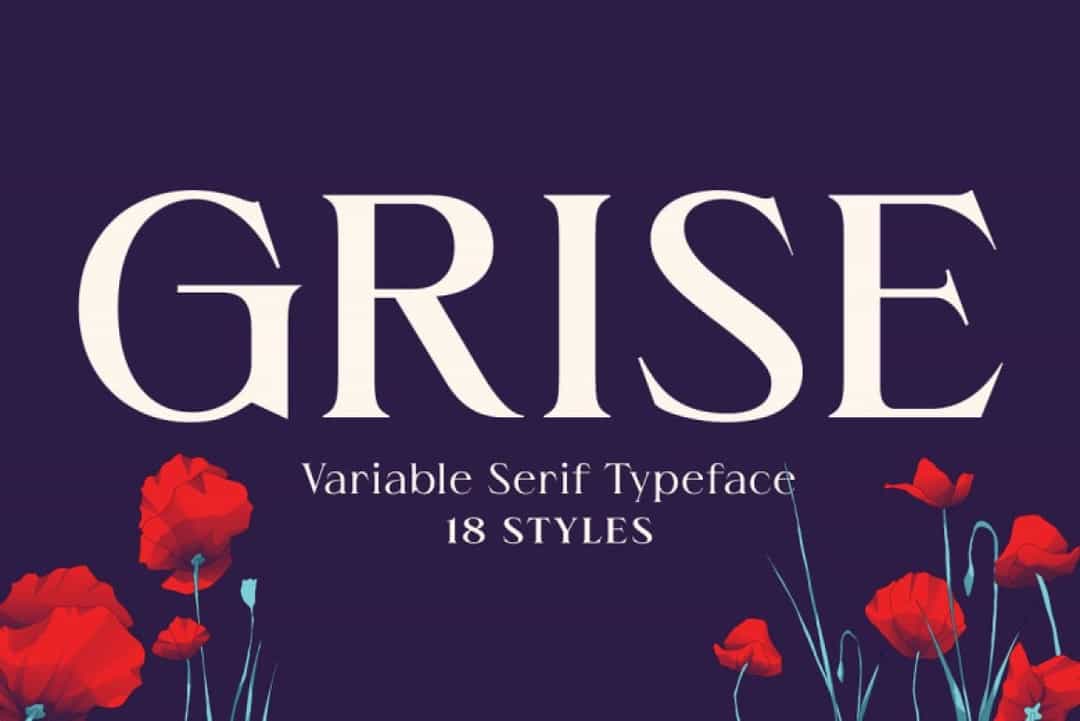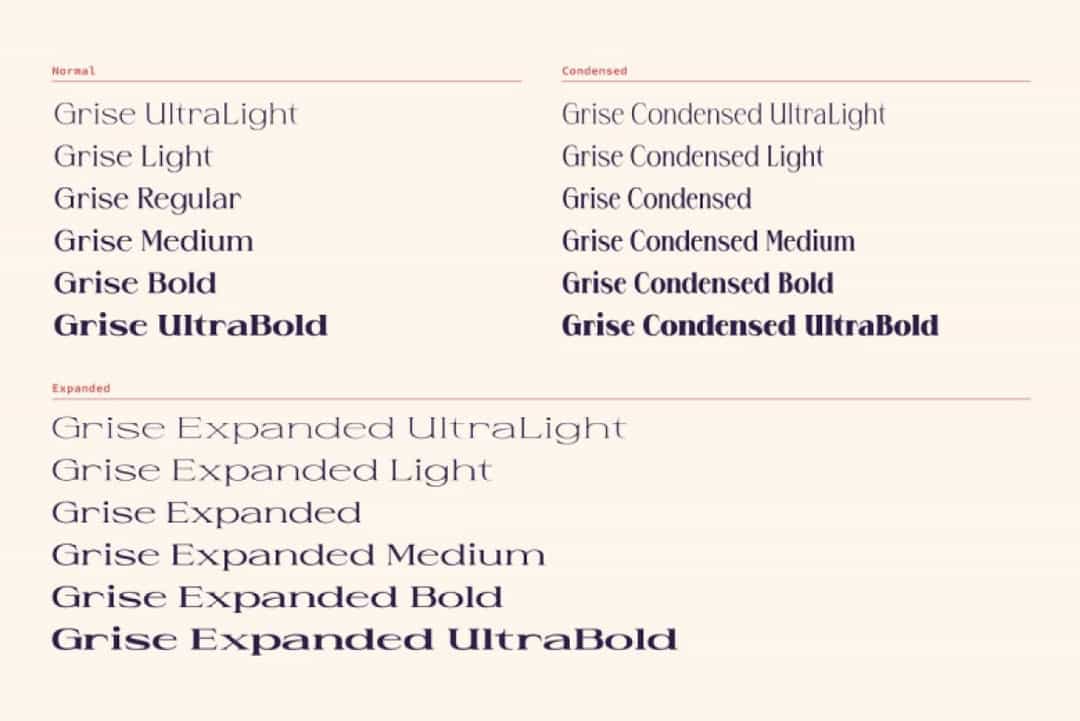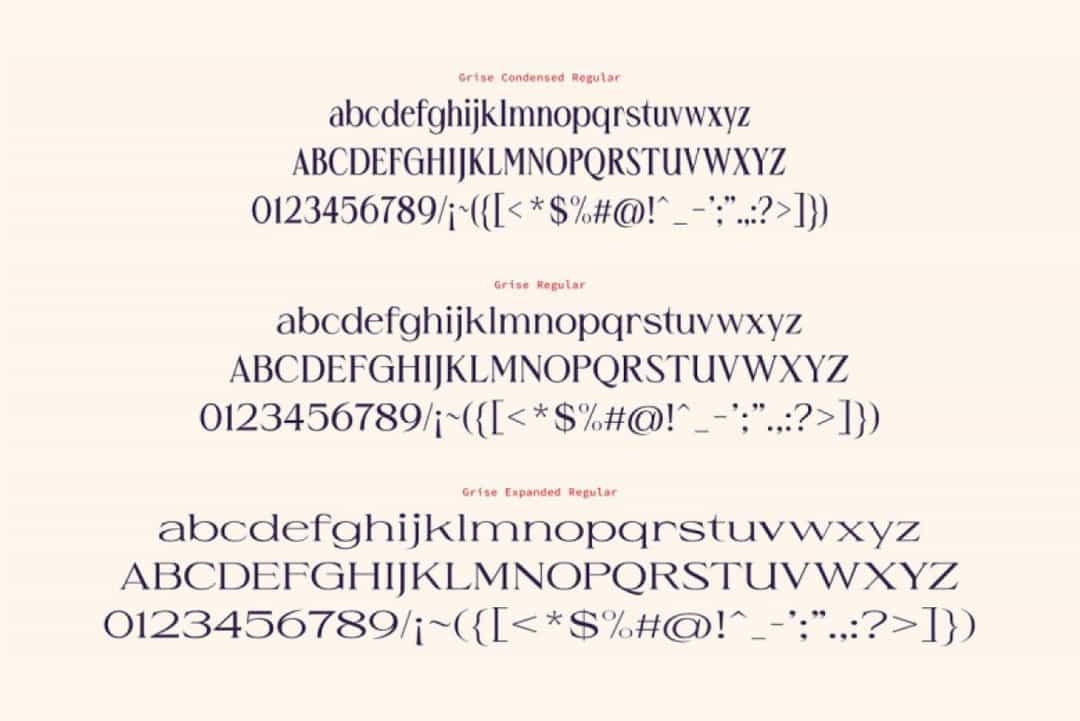
Grise can be defined as a variable display font created using two axes that measure width and weight. Inspired by sci-fi 90s anime and game logos, Grise is an iconic font with modern style.